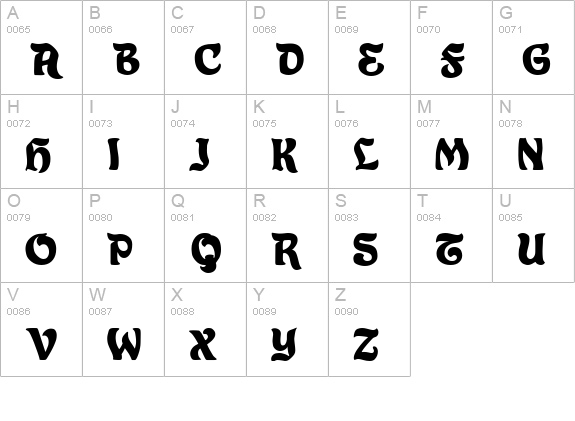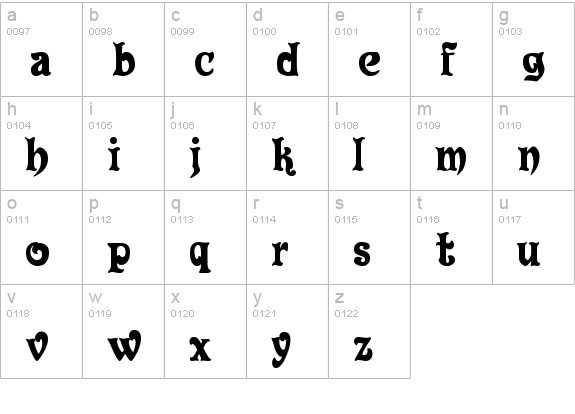
Eldorado font is a stunning display typeface that exudes elegance and sophistication. With its intricate details and stylish curves, this font is perfect for adding a touch of luxury to your designs. The ornate flourishes and timeless appeal of Eldorado font make it a versatile choice for a wide range of projects, from wedding invitations to branding materials. What's even better is that Eldorado font is available for free download at FontsMarket.com. You can easily access this exquisite font and elevate your designs with its charm and beauty. Don't miss out on the opportunity to add Eldorado font to your collection and enhance your creative projects with its distinctive flair.